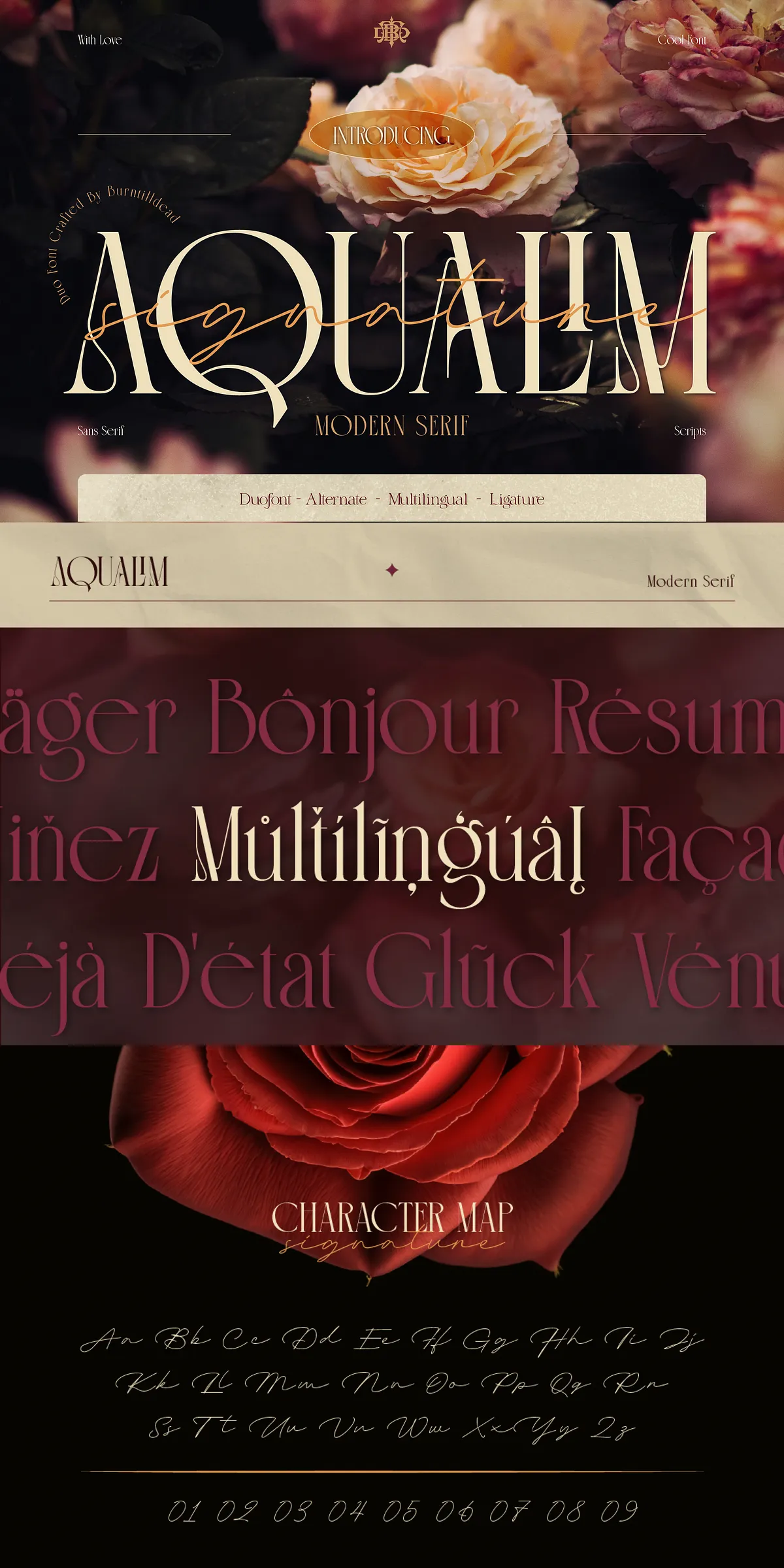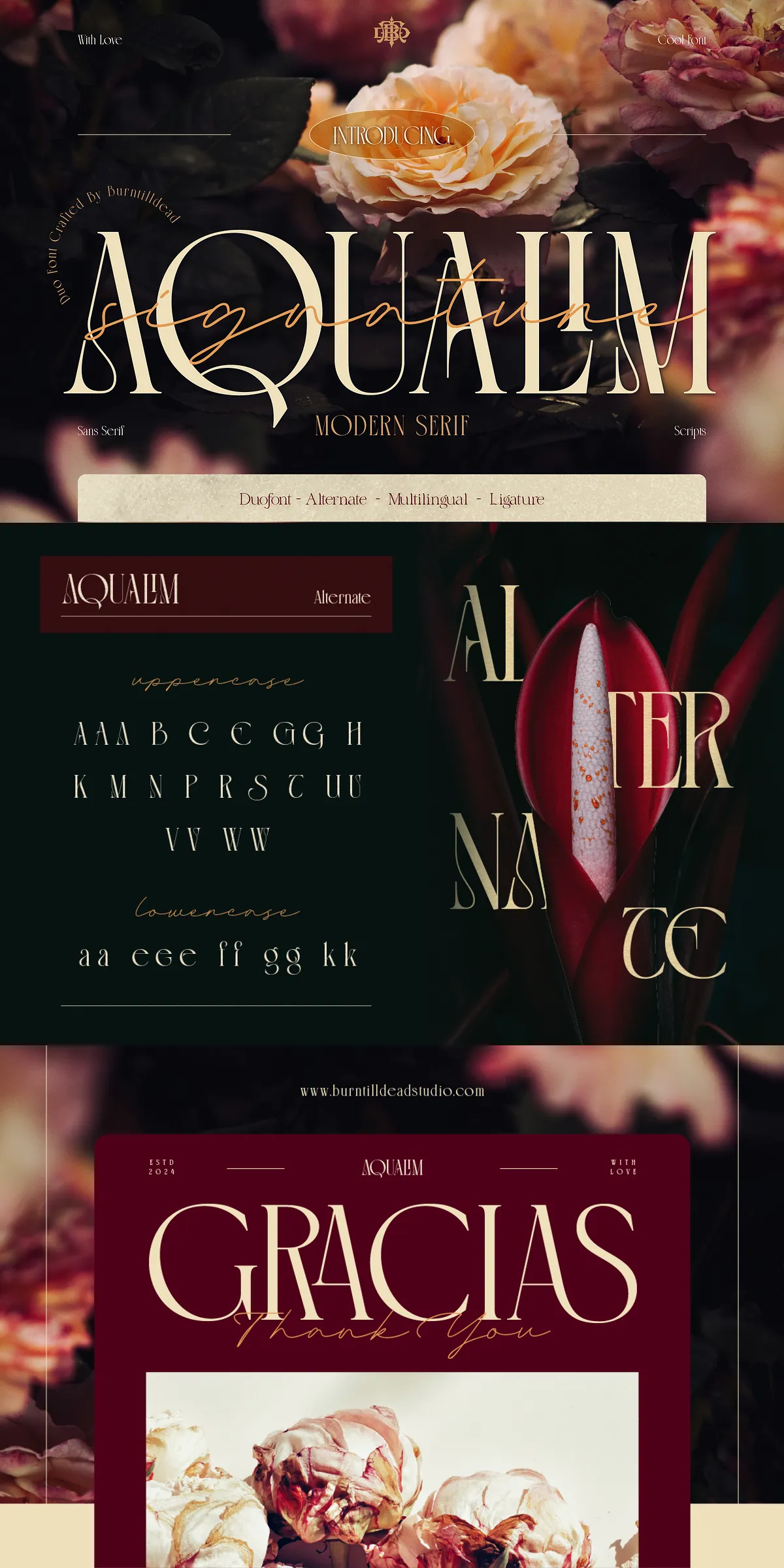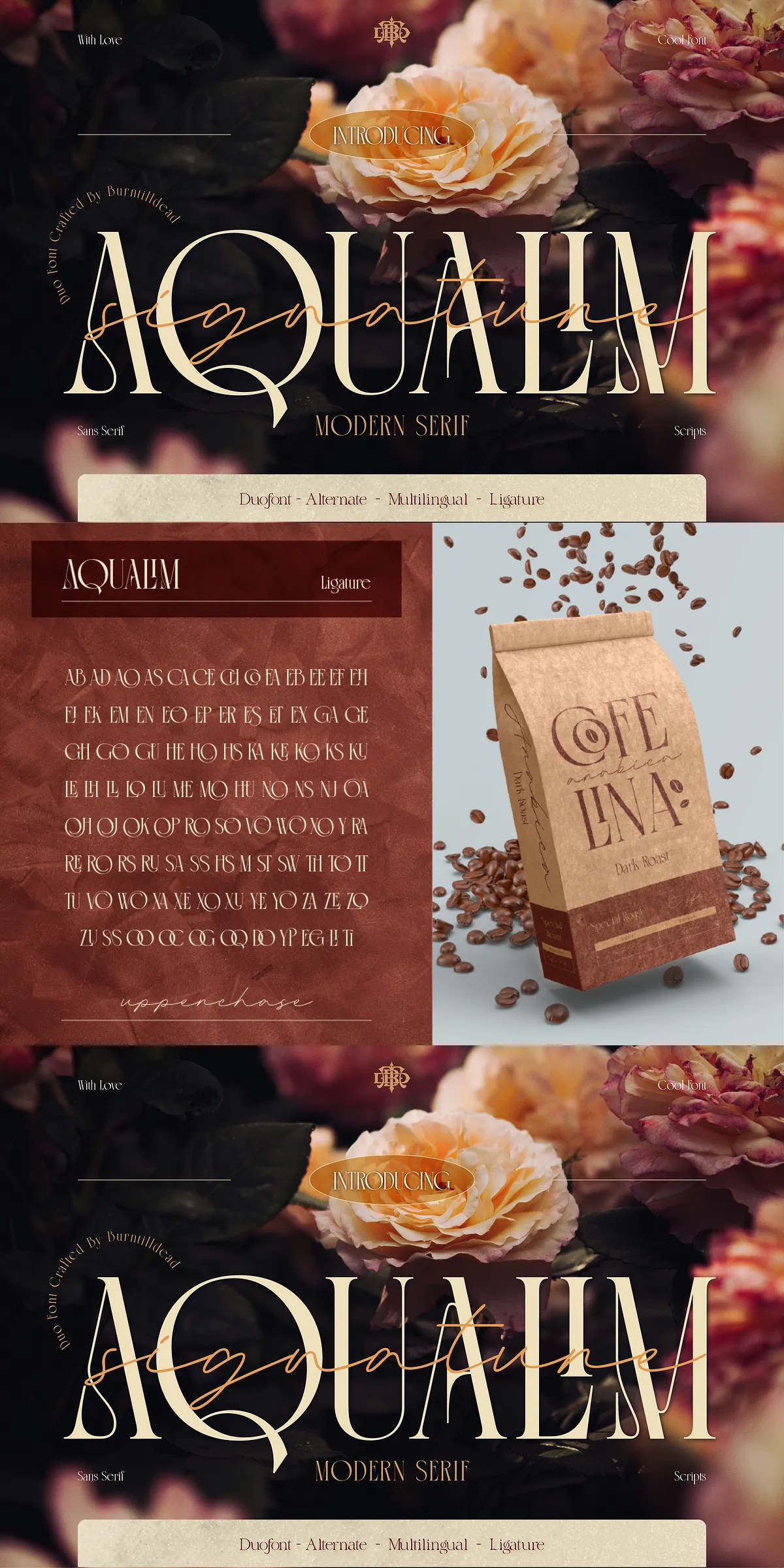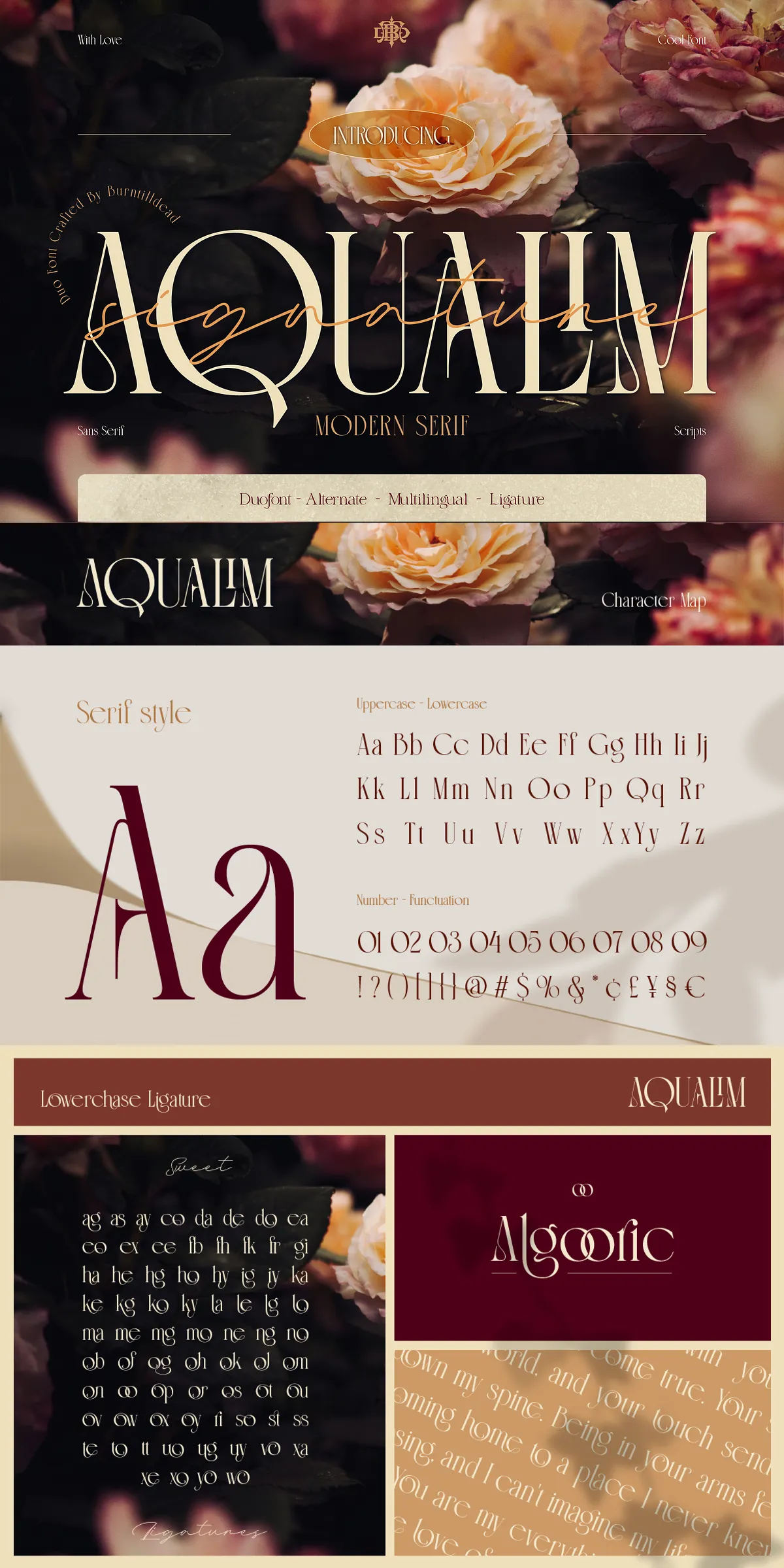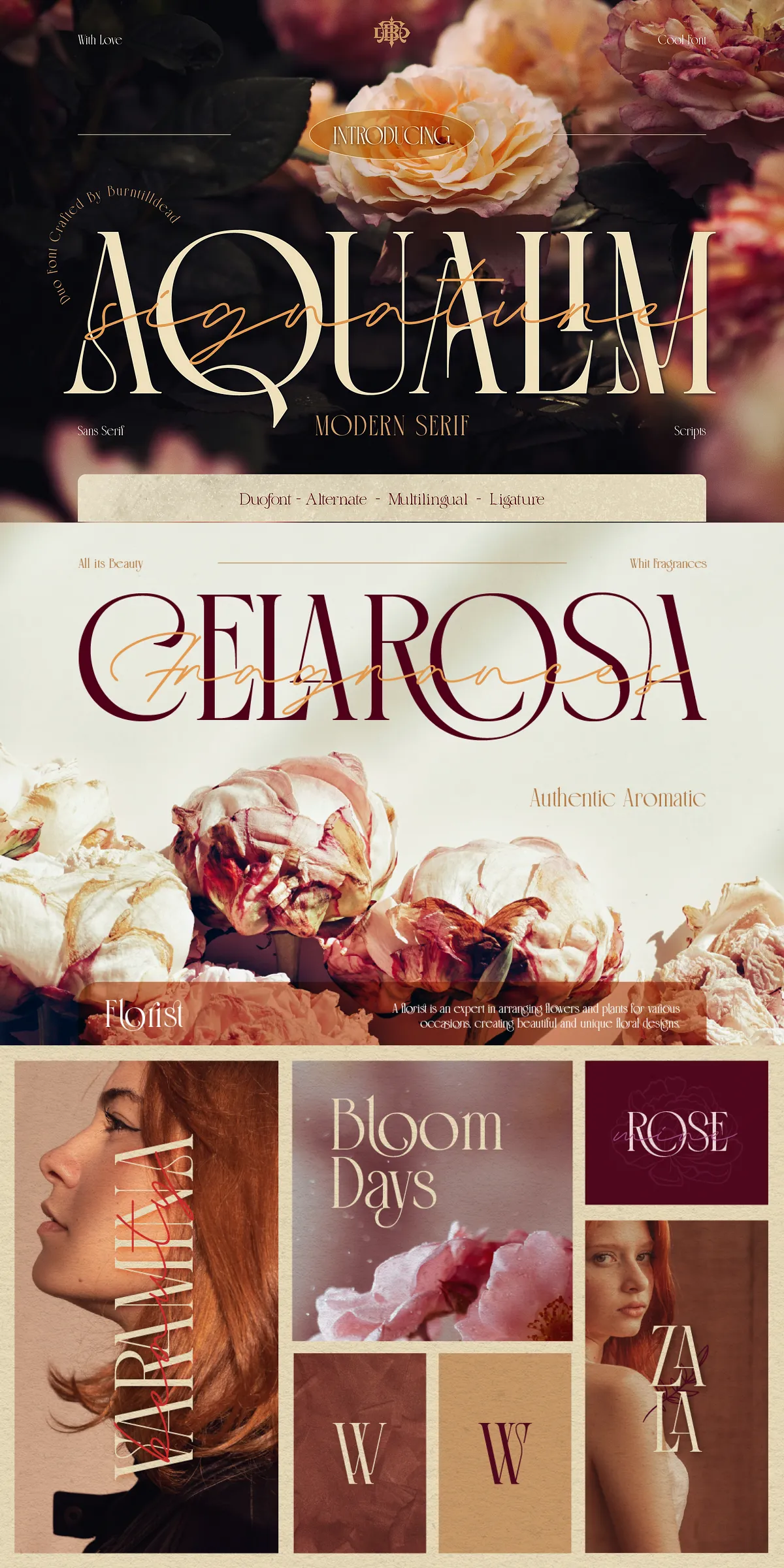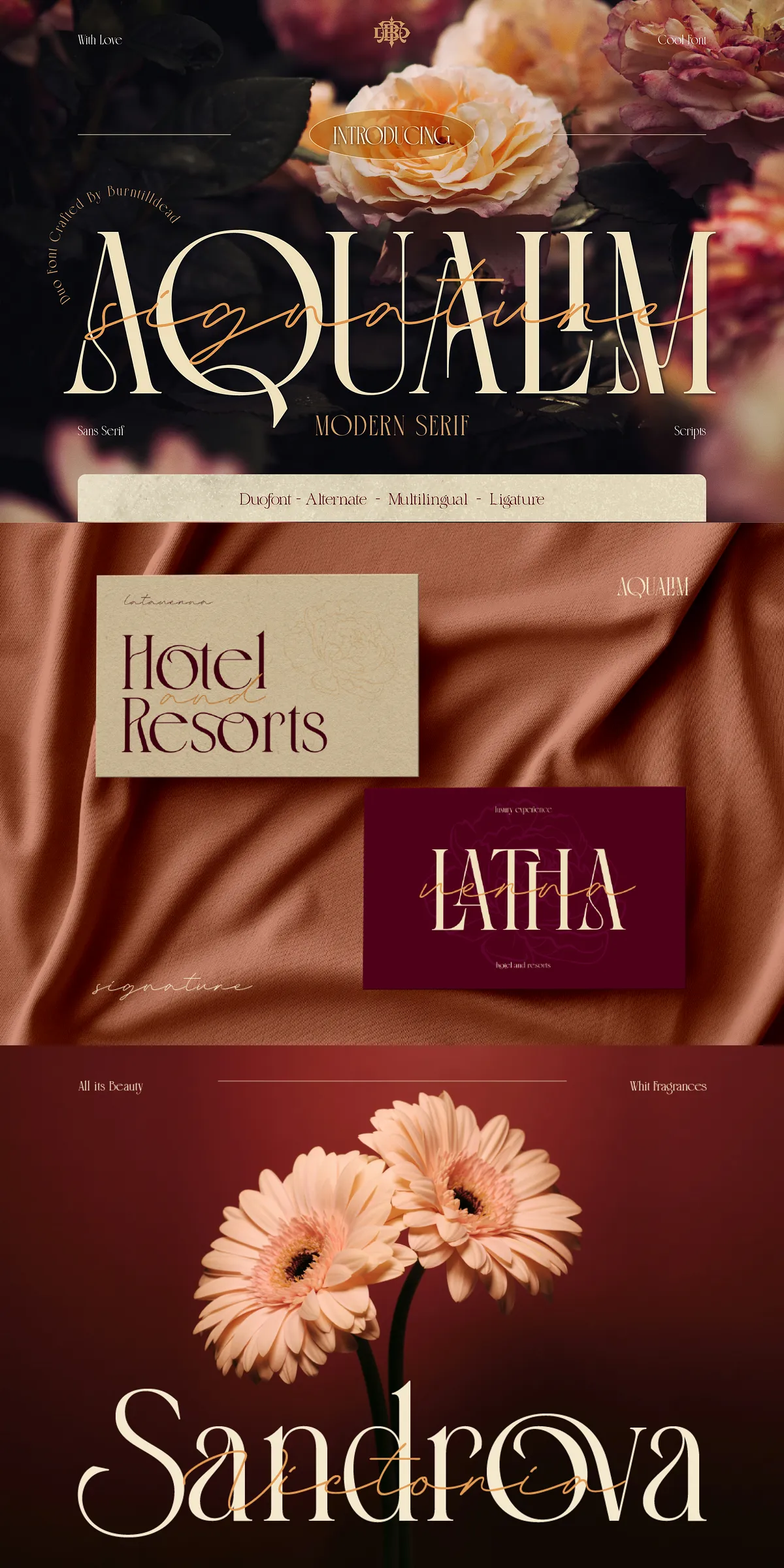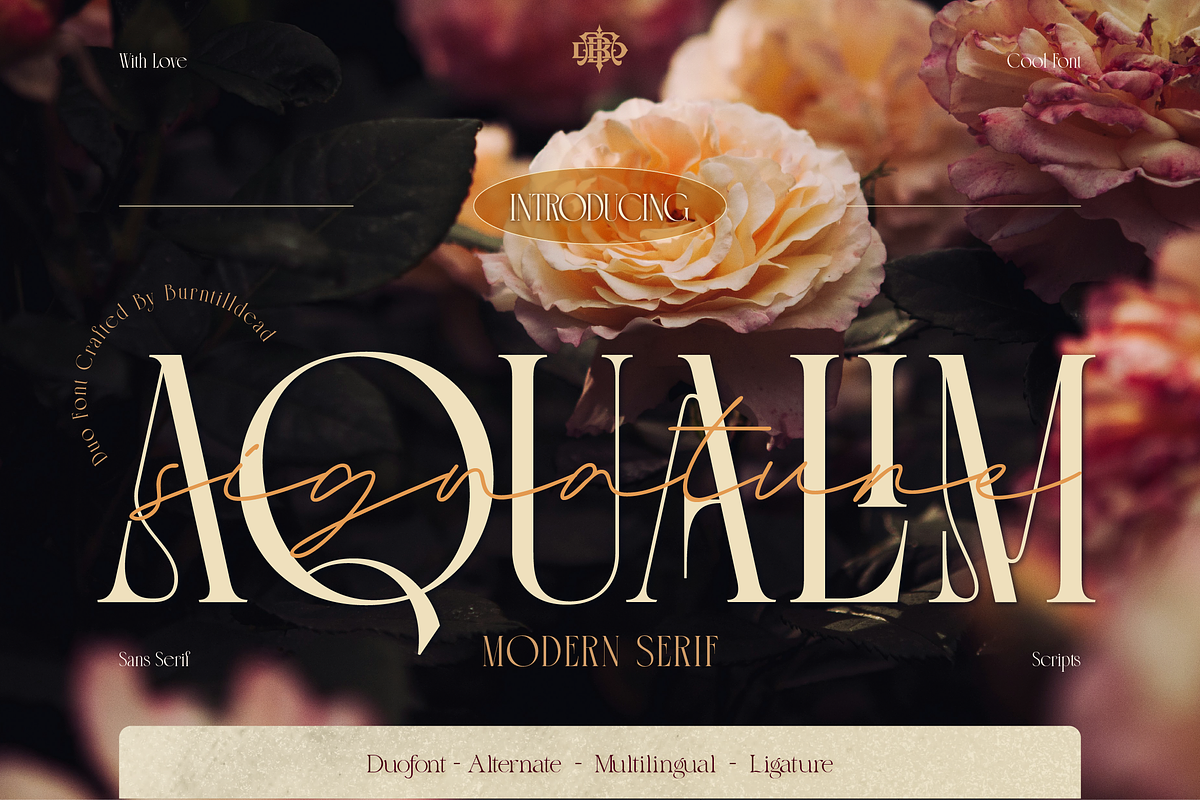
Step into a world where classic sophistication meets modern grace with Aqualim Signature Font — a dynamic duo that redefines luxury typography. This exquisite combination of a refined serif and a flowing script is more than just a font; it’s a statement of refined taste, designed for creators who demand the very best in visual impact and emotional resonance.
Discover the Duo That Elevates Every Design
Imagine the strength and clarity of a refined serif, blended seamlessly with the fluid beauty of a handcrafted script. That’s the magic of Aqualim Signature. It’s not just two fonts — it’s a design philosophy in motion. Use Aqualim for clarity and confidence in headlines, and switch to Signature for expressive flair in logos, quotes, and branding — the pairing creates visual harmony that speaks volumes before a single word is read.
- Complete A-Z Coverage — Includes full uppercase and lowercase letter sets for both Aqualim and Signature, ensuring typographic completeness across any project.
- Numerals & Punctuation — Fully equipped with clean, elegant numbers and essential symbols, making it ideal for both text and display use.
- Alternate Characters — Access multiple stylistic alternatives for key letters, allowing you to customize text to avoid repetition and enhance visual rhythm and uniqueness.
- Smooth Ligature System — Watch letters merge into elegant, connected forms. Ligatures add a sense of movement and sophistication, perfect for quotes, calligraphy-style headlines, and premium branding.
The Power of Pairing: Why This Duo Works Everywhere
Aqualim Signature is engineered to thrive in the most demanding creative environments. Its elegant balance makes it ideal for projects that require both authority and emotion:
- Headlines & Covers — Make magazine spreads, book covers, and digital banners impossible to ignore with bold, graceful typography.
- Logo Design — Create unique, memorable brand identities where the font itself becomes part of the story.
- Wedding Invitations & Stationery — Deliver a sense of elegance, formality, and timeless romance with every printed detail.
- Product Packaging & Merchandise — Elevate packaging for cosmetics, luxury goods, and curated lifestyle brands with a premium visual identity.
- Social Media & Marketing Campaigns — Generate high-engagement content that feels exclusive and sophisticated, attracting attention in crowded digital feeds.
- Posters & Editorial Design — Command attention in print and digital with text that feels both polished and expressive.
- Multi-Language Readiness — Supports Western and Central European language characters with full accent coverage — perfect for international projects.
Maximize Your Creative Potential
For example:
- Apply alternates in Aqualim for a more structured, classic look on official documents or invitations.
- Use signature ligatures to create flowing, hand-drawn effects in quotes, social media quotes, or mood boards.
- Pair Aqualim for main headlines and Signature for subheadings — create visual rhythm and storytelling depth.
Whether you’re crafting a wedding invitation that feels like a love letter or launching a luxury brand that demands visual prestige, Aqualim Signature is the tool that brings elegance to life. This is typography that doesn’t just communicate — it inspires, moves, and lingers.